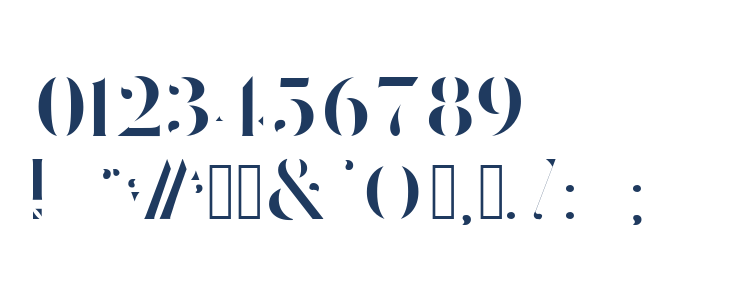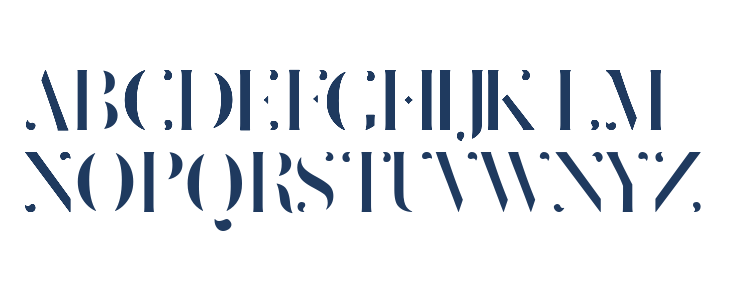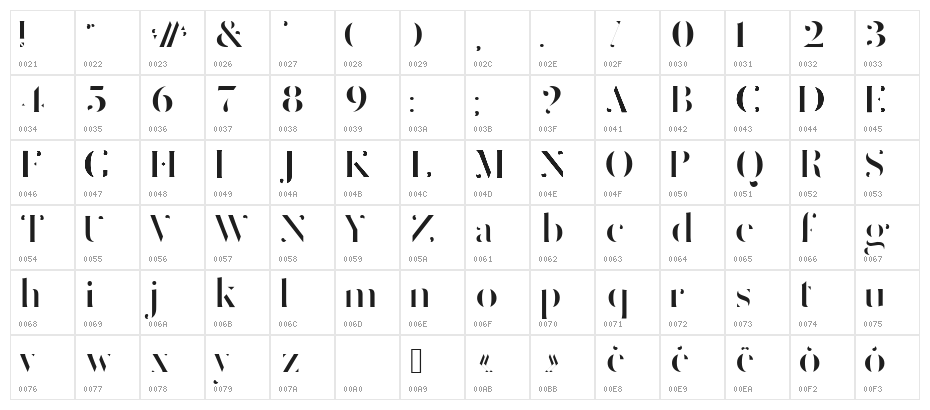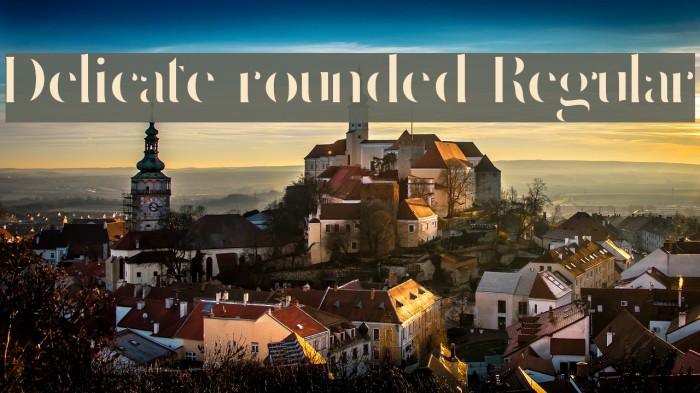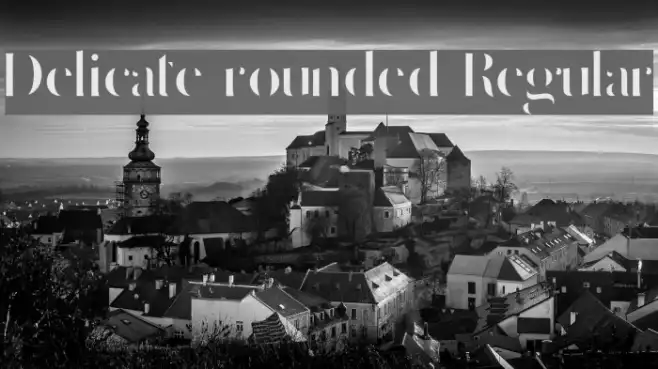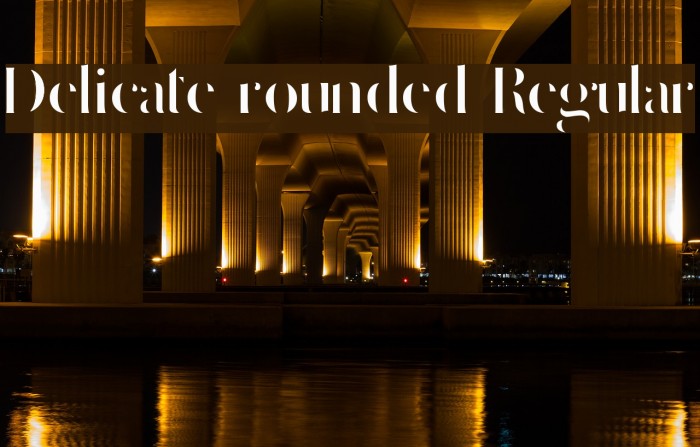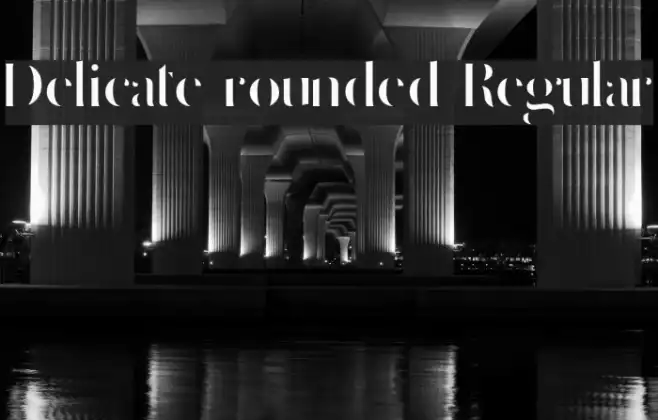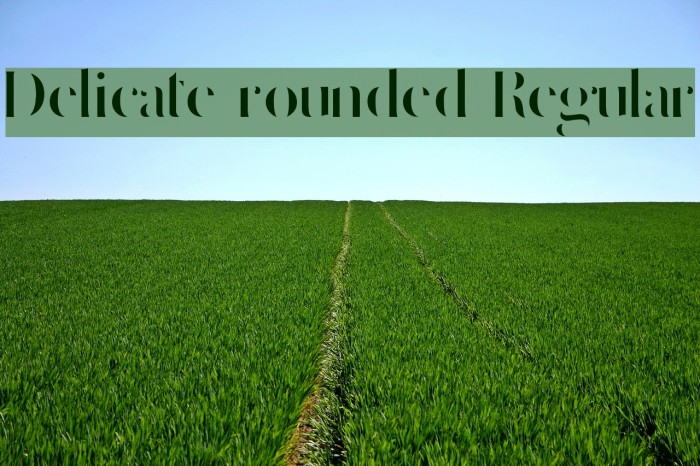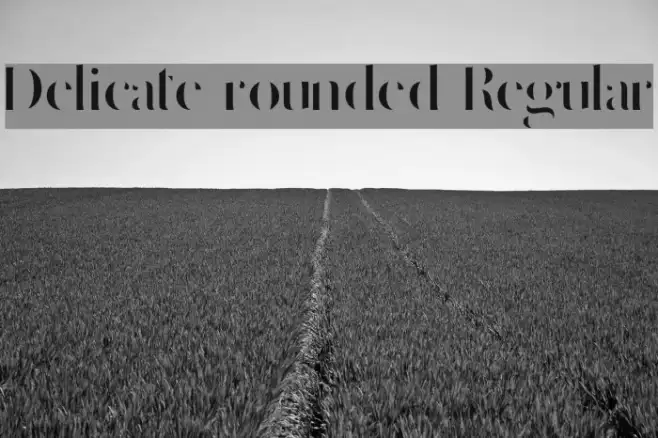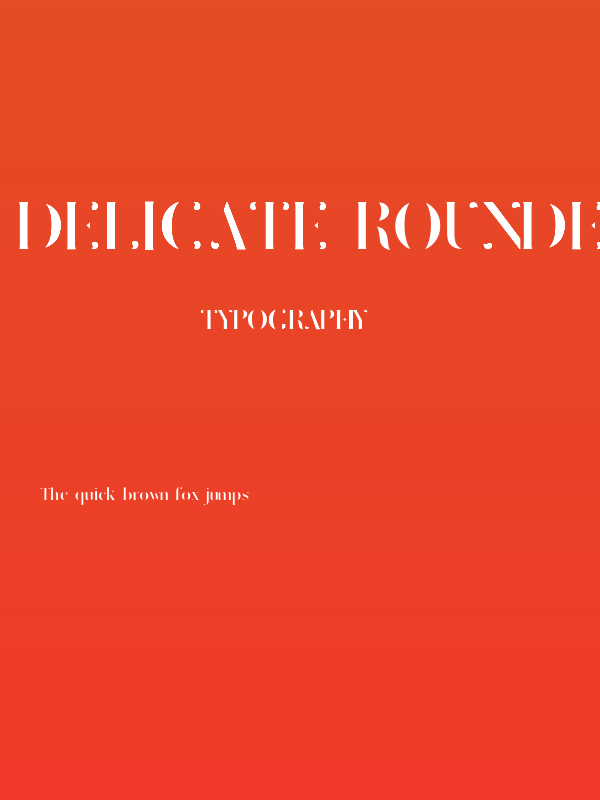
Delicate rounded Regular Font
Delicate rounded Regular Description
This font features a unique blend of modern and decorative styles, characterized by its rounded and delicate cut-out shapes within each letterform. The uppercase and lowercase letters maintain a consistent design, with bold strokes and high contrast between thick and thin lines. The numbers and special characters follow the same stylistic approach, making them visually cohesive with the alphabet. The font's distinct appearance makes it suitable for creative and artistic projects where a bold statement is desired.
| Proposed Projects | Ideal for branding, poster design, album covers, and artistic projects requiring a bold, modern aesthetic. |